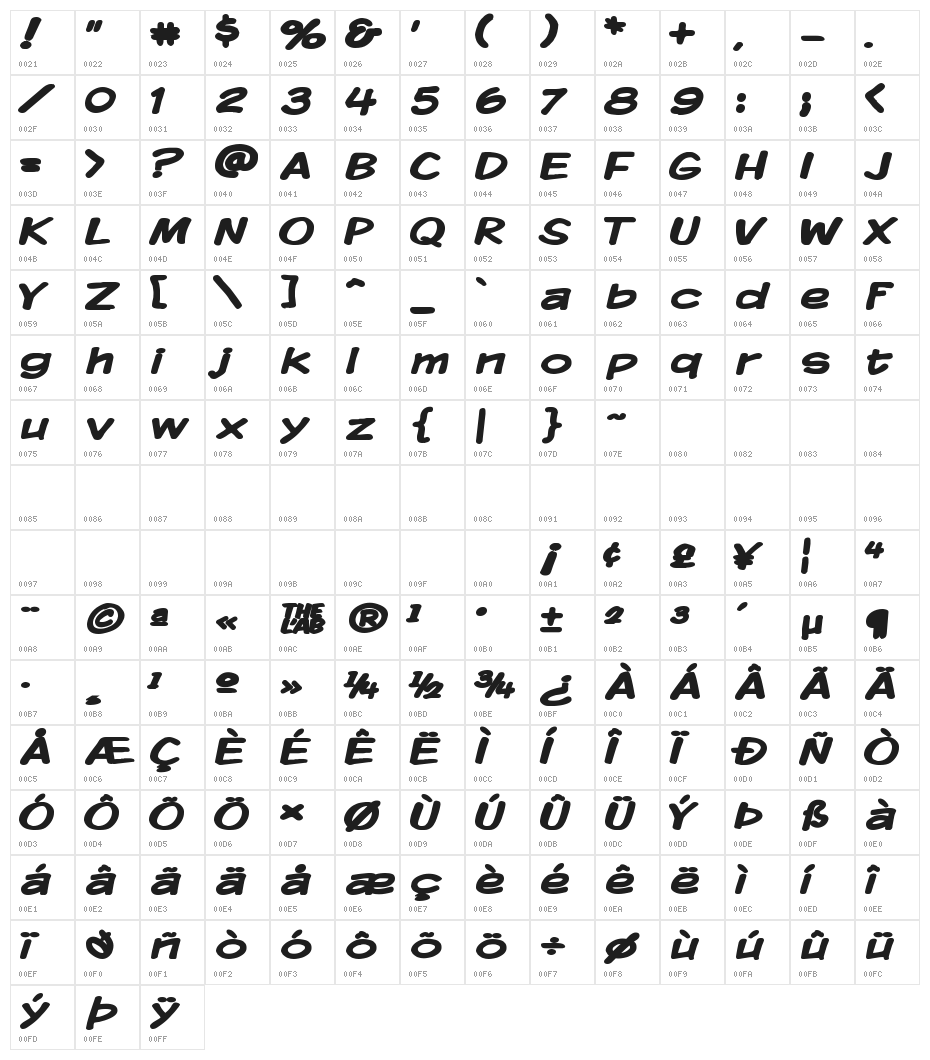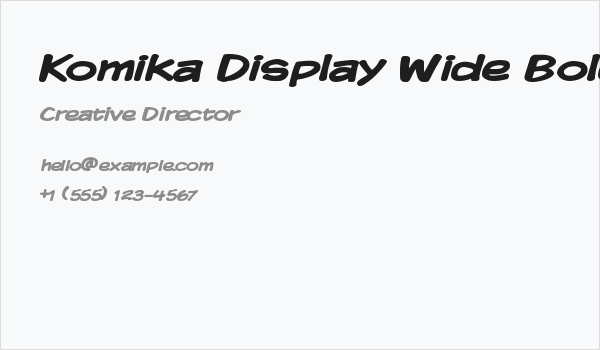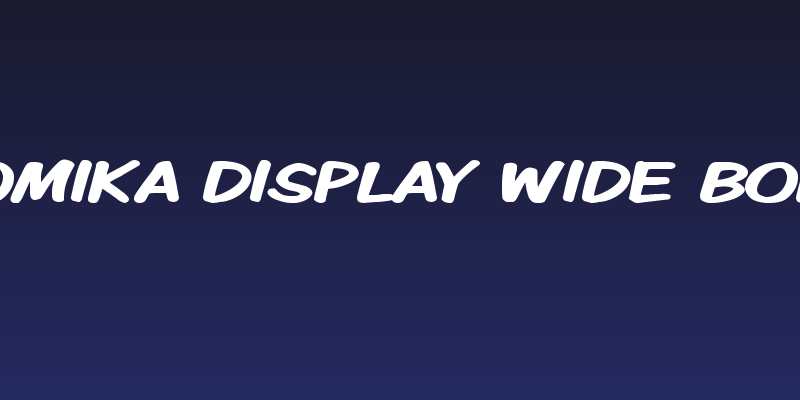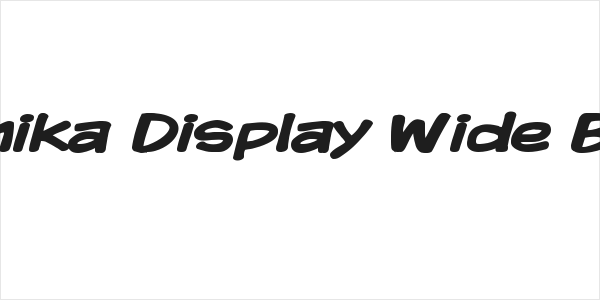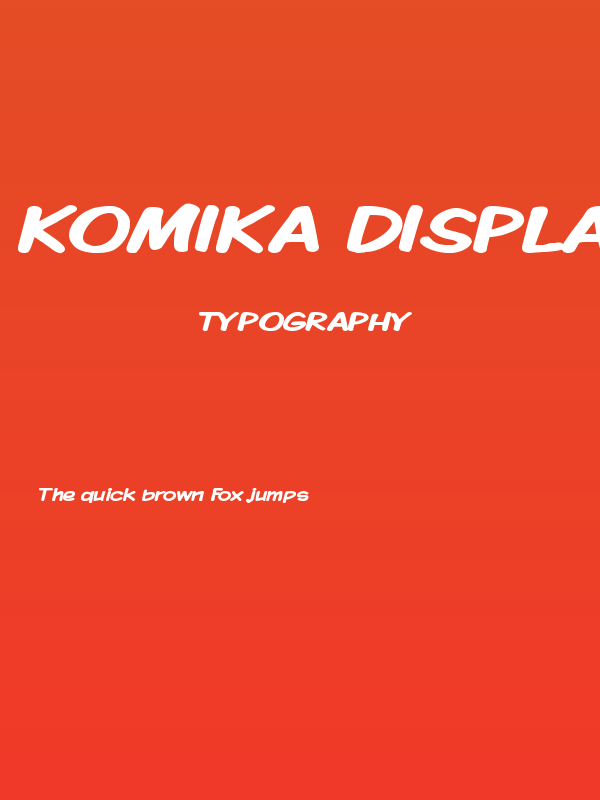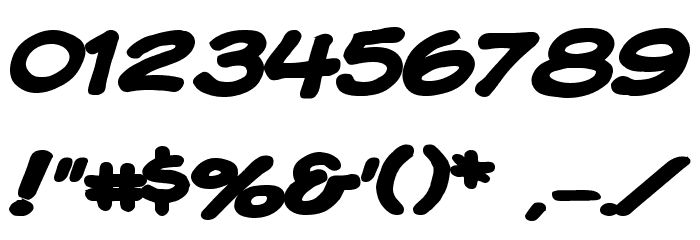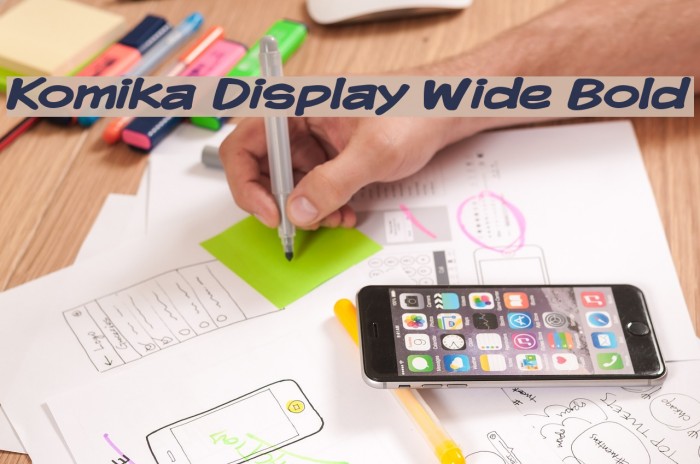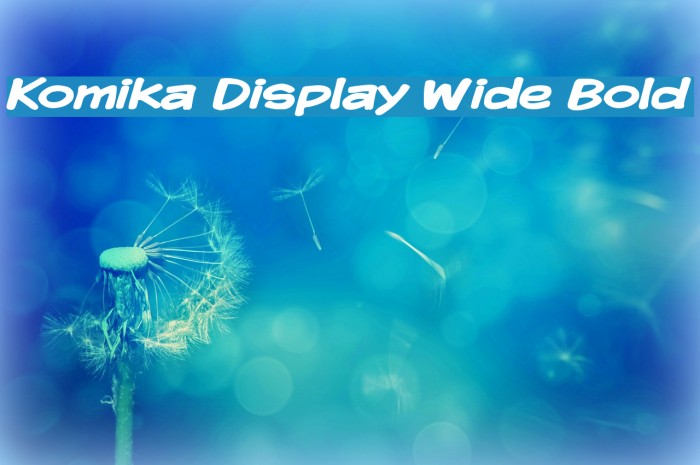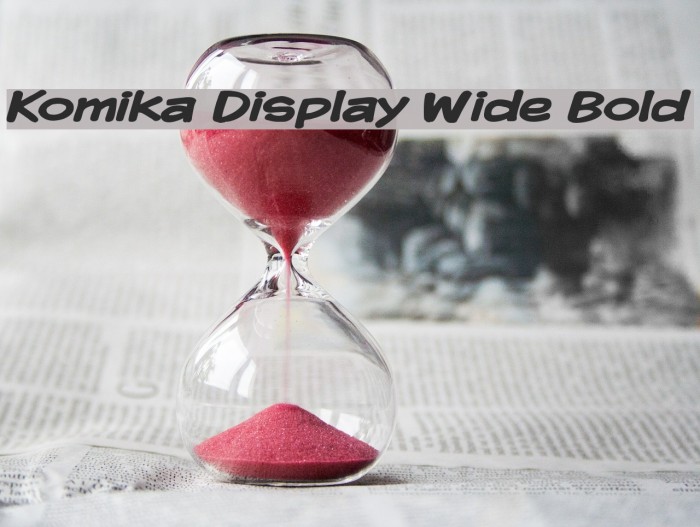
Komika Display Wide Bold Font
This font features a bold and playful style with a wide stance, giving it a strong presence. The characters are rounded and slightly slanted, adding a dynamic and energetic feel. The uppercase letters are robust and commanding, while the lowercase letters maintain a consistent flow with a slightly casual touch. Numbers and special characters are designed to match the boldness and playfulness of the alphabet, making the font suitable for attention-grabbing designs. The overall appearance is reminiscent of comic or cartoon styles, making it ideal for fun and informal projects.
| Overall Style | Playful, Comic |
| Proposed Projects | Ideal for comic books, children's books, playful branding, posters, and informal digital content. |